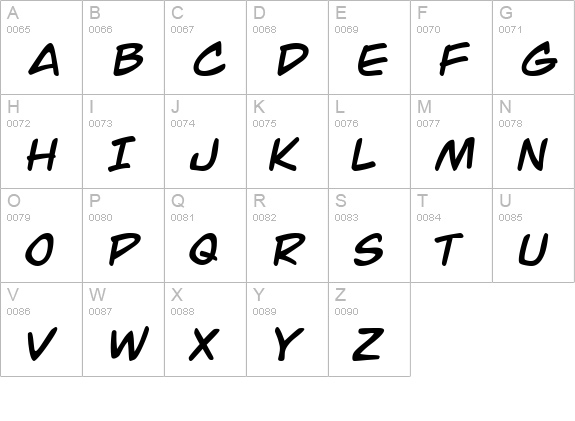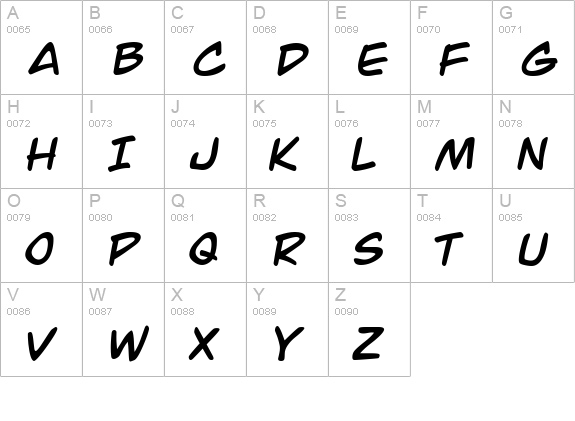
Jack Armstrong Italic Font Details
Jack Armstrong Italic is a distinctive, italic variant in the Jack typeface family \xE2\x80\x94 well suited to design and typography projects.
Introducing Jack Armstrong Italic font, a stunning typeface that effortlessly combines elegance with modernity. This font is the perfect choice for those seeking a touch of sophistication in their design projects. Its gracefully slanted italic style adds a sense of movement and dynamism, making it ideal for conveying a sense of energy and creativity. Jack Armstrong Italic font is meticulously crafted with attention to detail, ensuring each letter is perfectly balanced and harmonious. The clean lines and subtle curves create a sleek and polished look that is both eye-catching and easy to read. Whether used for branding, advertising, or editorial purposes, this font will elevate any design to new heights. One of the best features of Jack Armstrong Italic font is that it is freely available to download at FontsMarket.com. This means that you can easily access and incorporate this remarkable typeface into your projects without any hassle. The freedom to use this font without any cost allows you to experiment and explore its potential in various creative endeavors. With its versatility and timeless appeal, Jack Armstrong Italic font is suitable for a wide range of design applications. From logo designs and packaging to website headers and social media graphics, this font will make your visuals stand out from the crowd. Its unique style and effortless elegance will captivate your audience and leave a lasting impression. In conclusion, Jack Armstrong Italic font is a must-have for designers and creatives looking to add a touch of sophistication and modernity to their projects. Its freely available download option at FontsMarket.com makes it even more accessible and convenient. So, why wait? Unleash your creativity and elevate your designs with this remarkable typeface today.